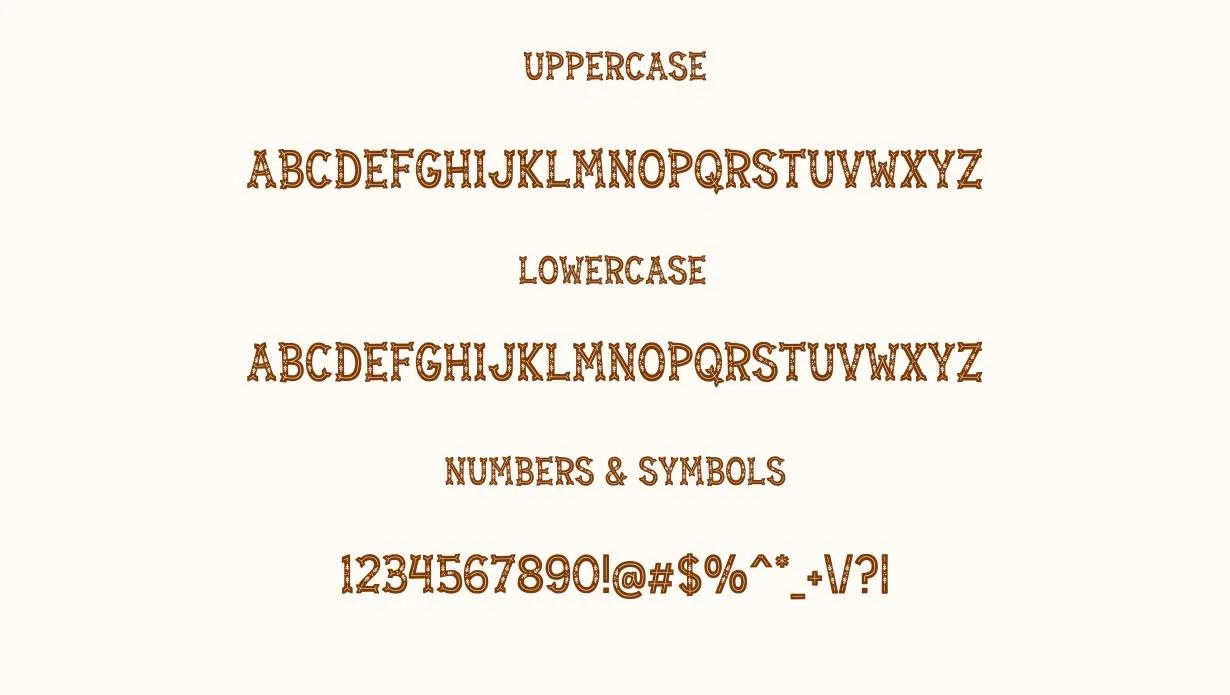
Infuse your text with the festive spirit of Mistletoe Font. Its whimsical and decorative characters add a touch of holiday magic to your words.
Whether you’re creating Christmas cards, holiday event invitations, or any project that celebrates the joy of the season, Mistletoe Font brings a festive and merry quality to your designs, making them feel like a warm holiday embrace.